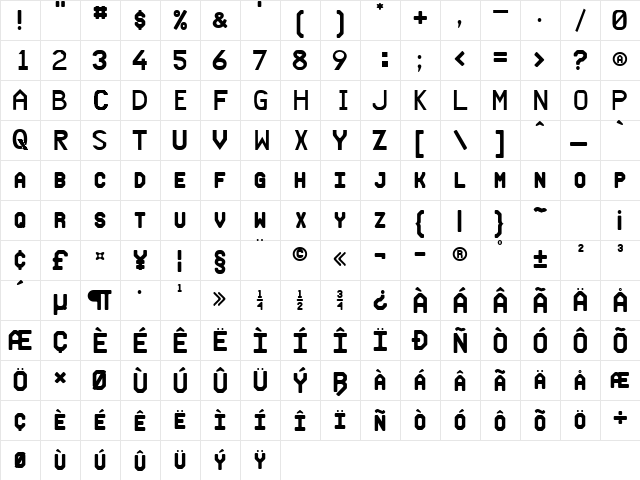
Nobelcat's CA Regular
Design Context for Nobelcat's CA Typeface
Nobelcat's CA is a composed and adaptable typeface that performs quietly and consistently across a wide range of design contexts.